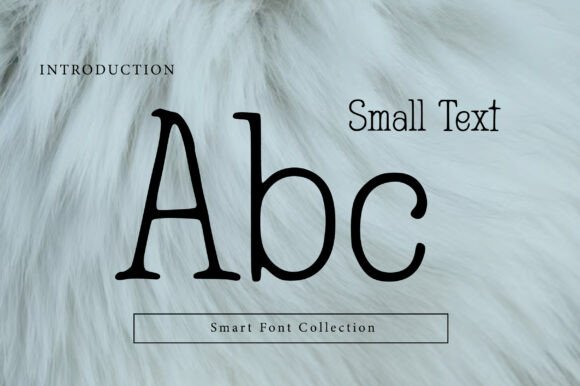
Unlocking the Power of Small Text Font
As designers, we’ve all been there – staring at a blank canvas, struggling to find the perfect font to elevate our creative project. But what if I told you that there’s a font that can effortlessly bring sophistication and clarity to even the most intricate designs? Enter the Small Text Font, a clean and friendly serif display font that’s specifically designed for maximum legibility at smaller sizes.
Whether you’re working on a high-end editorial layout, a minimalist website header, or an instructional infographic, the Small Text Font is an ideal choice for designers who value understated elegance. Its slim and clean verticality ensures that your message remains the focal point, while its neutral yet stylish personality makes it an excellent partner for administrative branding and professional portfolios.
Key Features of Small Text Font
- Unique, stylish Small Text Font with a transparent background for flexible design
- Perfect for use in digital design, including web and mobile applications
- Small Text Font is a versatile design element, ideal for headings, titles, and body text
- Supports a wide range of languages, making it a great choice for multilingual projects
Honest Review: Small Text Font
- What works well: ✨ The font is highly legible, even at small sizes, and the transparent background option makes it easy to customize for any design.
- What works well: ✨ The font is also incredibly versatile, and I was able to use it for a variety of different projects, from web design to print materials.
However, there were a few limitations that I encountered during my review. ⚠️ The font only comes in a limited number of weights, which may be a issue for designers who need more flexibility in their font choices. Additionally, the font may not be the best choice for large-scale text, as it can become difficult to read at bigger sizes.
Small Text Font is commonly used in presentations, reports, and social media graphics. It’s also useful for creating captions, subtitles, and other text elements in your designs. With its high-quality design and free download options, it’s a great resource for any creative project.
To get the most out of Small Text Font, try combining it with other design elements, such as images and graphics. You can also experiment with different font sizes, colors, and settings to create a unique look for your design. Additionally, use the font in conjunction with a transparent background to create a clean and modern design.
Is Small Text Font suitable for use in print design?
Yes, Small Text Font is designed to work well in print design. The font’s high-quality design and clear typography make it an excellent choice for use in brochures, business cards, and other print materials. Additionally, the font’s high-resolution design ensures that it remains crisp and clear even when printed at high resolutions.